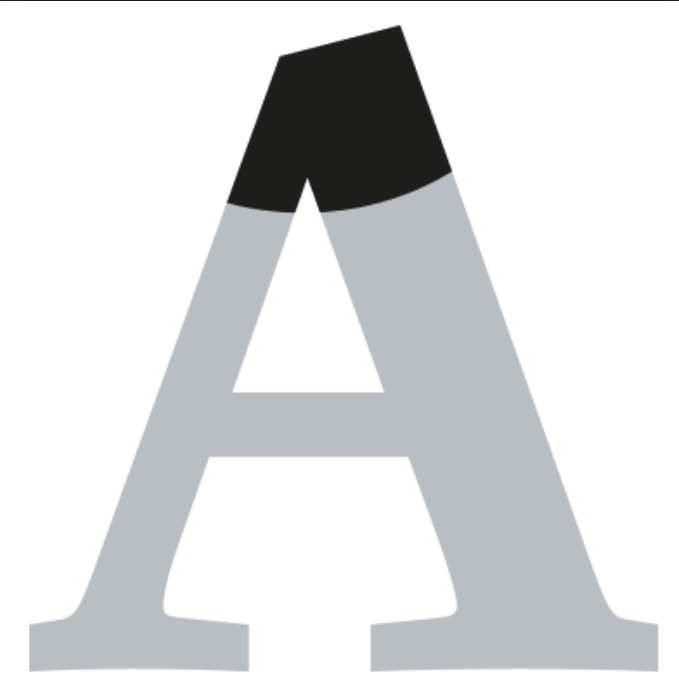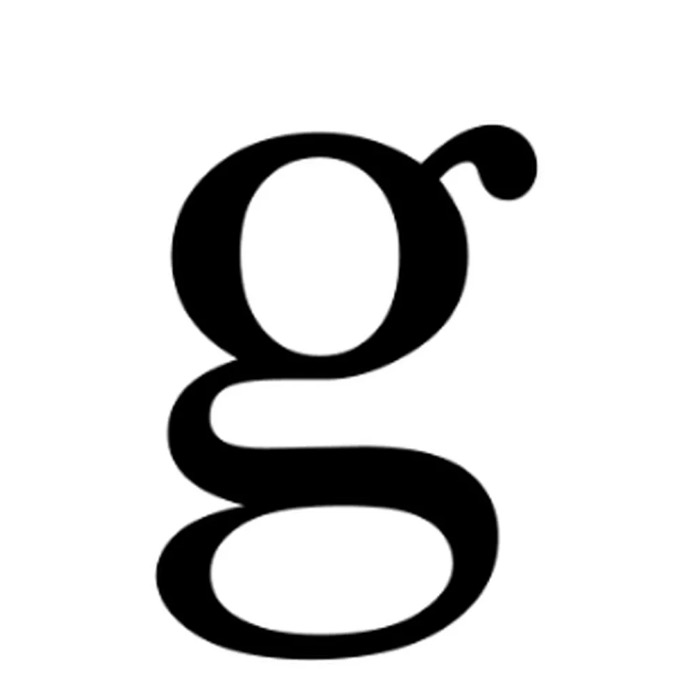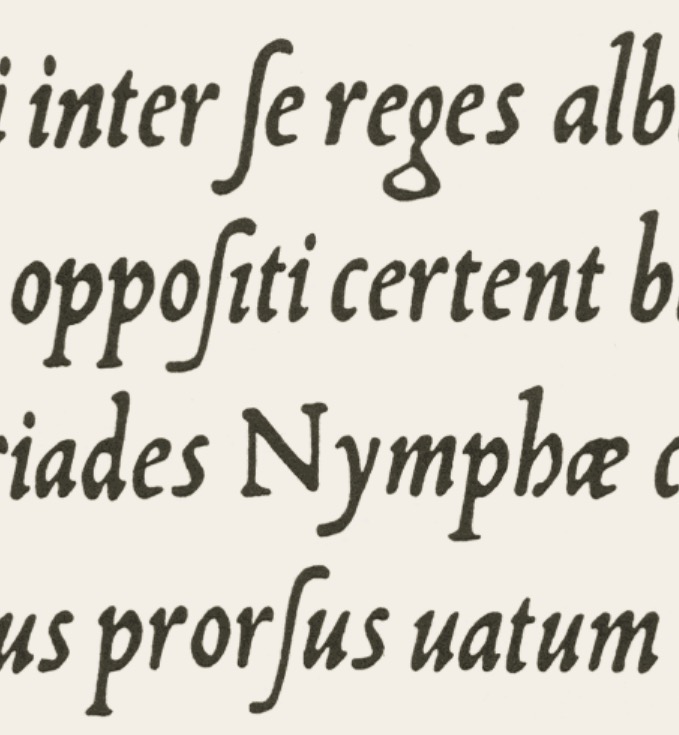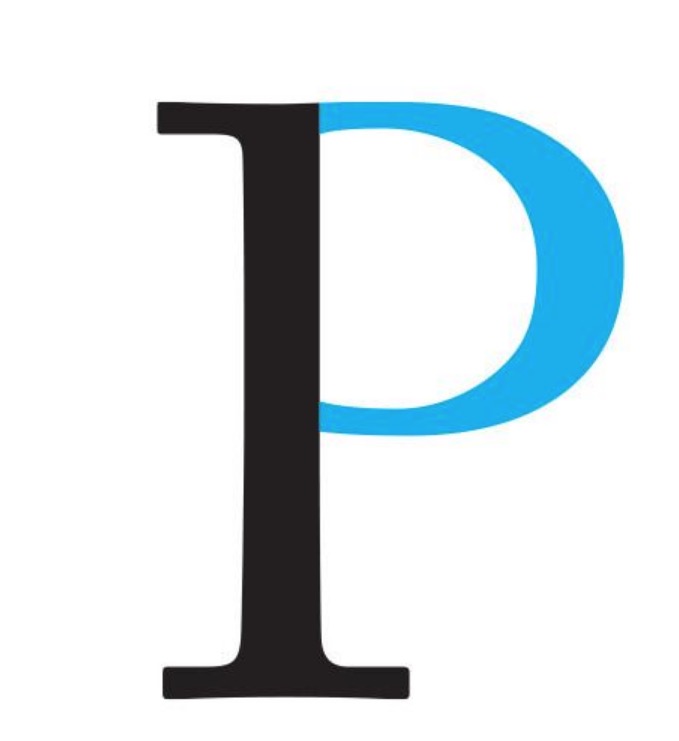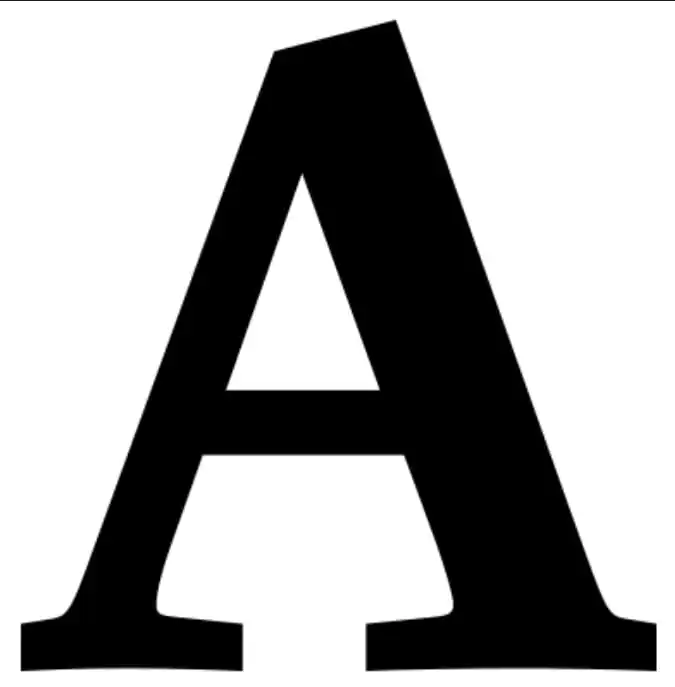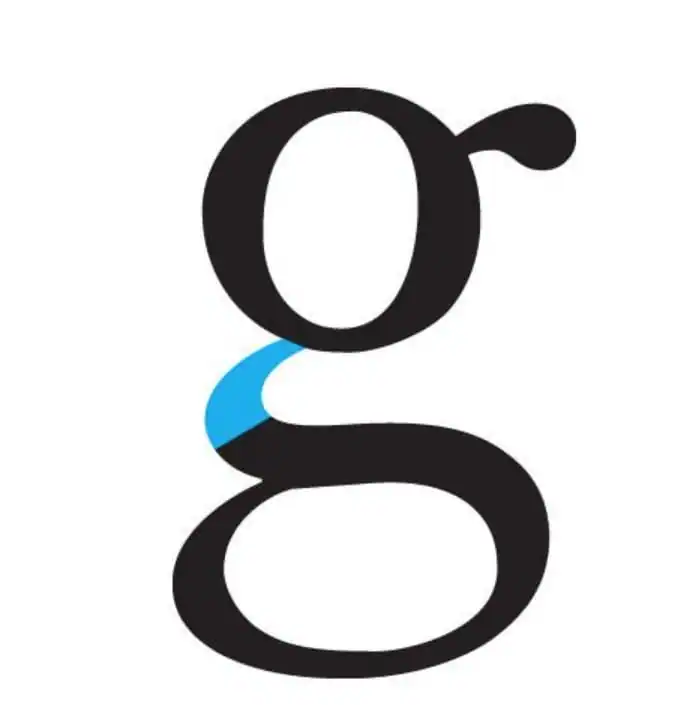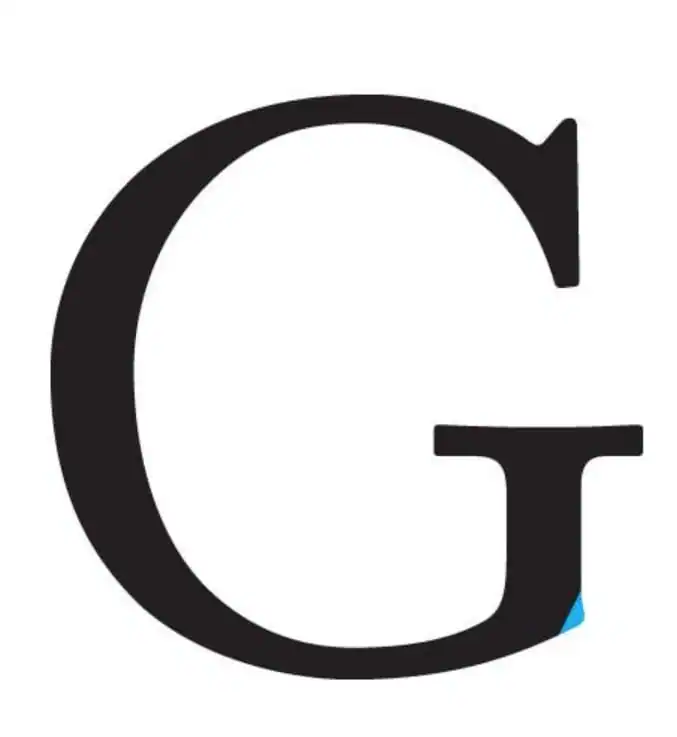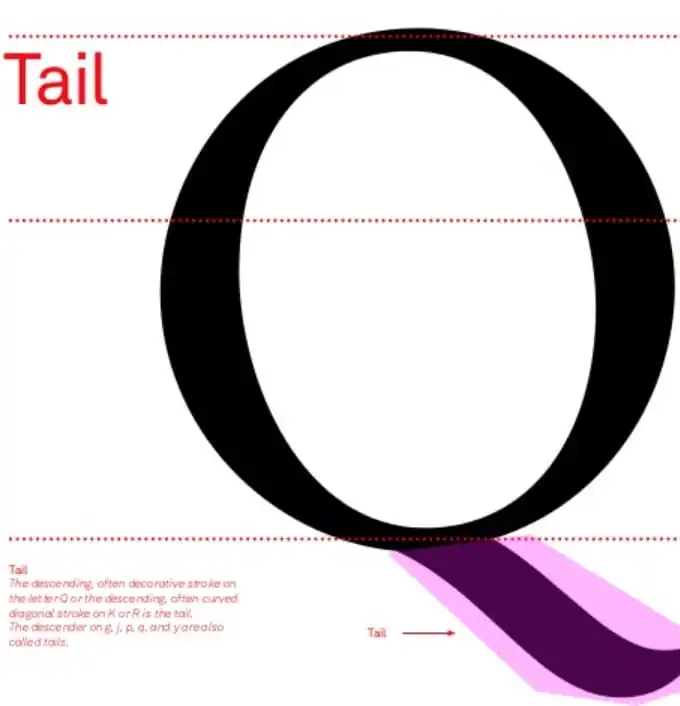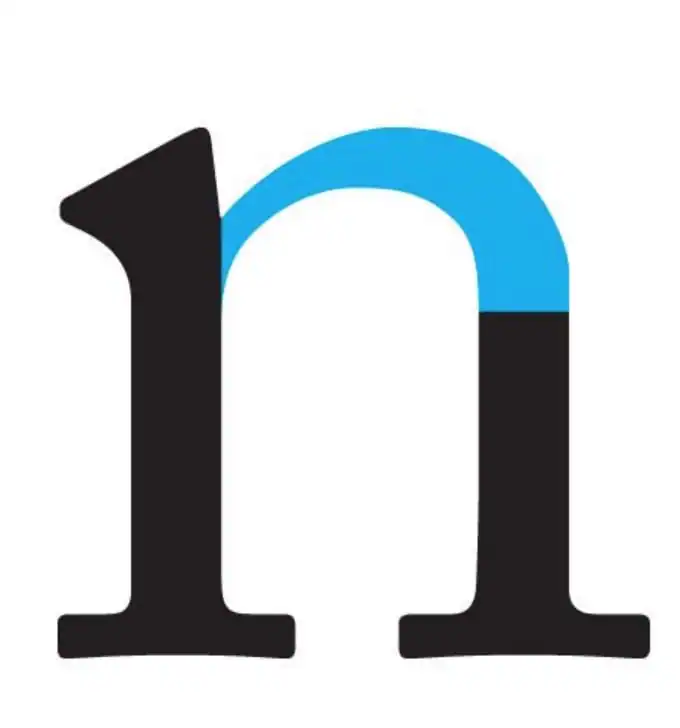
The Only Font Anatomy Design Guide You’ll Ever Need
Lovers of typography can’t resist any deep look at font anatomy, which is the study of the different parts of fonts. The words you’re reading right now, the words you read inside your favorite app, and even the words telling you the dinner specials at the restaurant you visited last week all possess the same features that determine how easily you can read the text you’re viewing. Understanding this font anatomy is crucial to you as a designer because it helps with choosing the right fonts for specific projects and goals. It’s not just a matter of what looks more attractive: it’s a matter of ensuring that your design is legible and readable. And if it’s also aesthetic, then that’s just a spectacular bonus. Identifying the various parts of a font goes a long way toward empowering designers to make sense of how to use and pair fonts, depending on the project they’re working on. Here’s a deep dive into the specific parts of characters, sure to stimulate the budding typographer in you.
Letterform
This term refers to the specific shape of a letter, making it one of the fundamental terms in all of typography. A letterform is a form of glyph, or a definitive and real way of writing down an abstract character.
Baseline
Very straightforward, the baseline is the imaginary line upon which all fonts in a typeface sit and beneath which descenders extend. Other closely related imaginary lines are the capline for a character’s cap height and the midline or mean line for a character’s x-height.
Stroke
The component of any character, the stroke can be straight line segment or a curved or rounded line in a letterform. If a stroke is straight–as in an uppercase L, lowercase d, or capital Z–then it can be horizontal, vertical, or diagonal. If the stroke is curved–as in a lowercase c or a lowercase o–then it’s either open or closed. Depending on its use within a character, the stroke can take on many names and purposes, as you’ll soon see.
Stem
One of the most fundamental portions of any character, its stem is the main stroke running vertically in upright letters. Examples include the main, vertical segment in an uppercase L, but also the main, vertical segment in a lowercase k. A stem can also be the diagonal, main stroke of a character that has no upright segments. Examples would include the diagonals in an uppercase A and the diagonals in both a lowercase z and uppercase Z. For an up-close-and-personal look at this font feature and others, browse our wide selection of font families and take a look at some of our standout fonts:
Bar
Sometimes called the crossbar, the bar is the horizontal stroke in a character that connects stems to each other. Examples of bars in letters include the horizontal strokes of the uppercase A and H and the lowercase l and f.
Arm
In font anatomy, a character’s arm is the part of the letter that reaches up or out. It’s attached on one end and free on the other and can either be straight or curved. Examples of arms include the horizontal line segments on an uppercase E and the diagonal strokes on both the lowercase v and uppercase V.
Leg
The leg of a font is the counterpart of its arm. Whereas the arm would extend up or out, the leg is simply the portion that extends down and is connected at one end and free on the other. An example of a leg includes the diagonal line segment that extends down on a lowercase k.
X-Height
Unlike many of the other font anatomy terms in this guide, a font’s x-height isn’t a part of the character. Instead, it’s a way of measuring it. Also called the corpus size, the x-height refers to the distance between the mean line (or midline) and baseline of lowercase letters in a font family. The mean line refers to half the distance between the cap height and baseline. The baseline refers to the line on which a character sits and below which descenders proceed.
Cap Height
In many ways the counterpart to a letter’s x-height, the cap height refers to the maximum height of a capital letter that rises above the baseline for any given font family. To be precise, cap height refers mainly to flat uppercase letters–such as H or T–instead of rounded capital letters like O or pointed ones like A. Both of these can present overshoot.
Overshoot
In typography, overshoot occurs in a rounded or pointed letter when said letter extends either higher or lower than a similarly sized flat character, such as a capital X or H. In other words, overshoot is the degree to which uppercase characters go beneath the baseline or above the cap height and to which lowercase characters extend beneath the baseline or above their x-height. Overshoot actually occurs to create the visual effect of letters being the same size, even though they’re not. Its purpose is to compensate for any inaccuracies in visual perception.
Ascender
The ascender is the section in a letter that reaches up beyond its x-height. The purpose of an ascender is to increase the legibility of the words formed by the letters, thus making them more readable.
Descender
The descender is the section in a letter that goes beneath its baseline. An example is the lowercase y’s so-called tail, which extends below the vertex of the “v†that’s created from the two diagonal lines in the y. In a letter like the lowercase p, the descender is the stroke running past the baseline.
Bowl
A bowl is quite straightforward: It’s the curved and closed stroke that forms an enclosed space within a letter–which also has its own typeface term. Examples of bowls include the curved strokes in the lowercase b and d and the uppercase B. In the case of the capital B, the letter has two bowls.